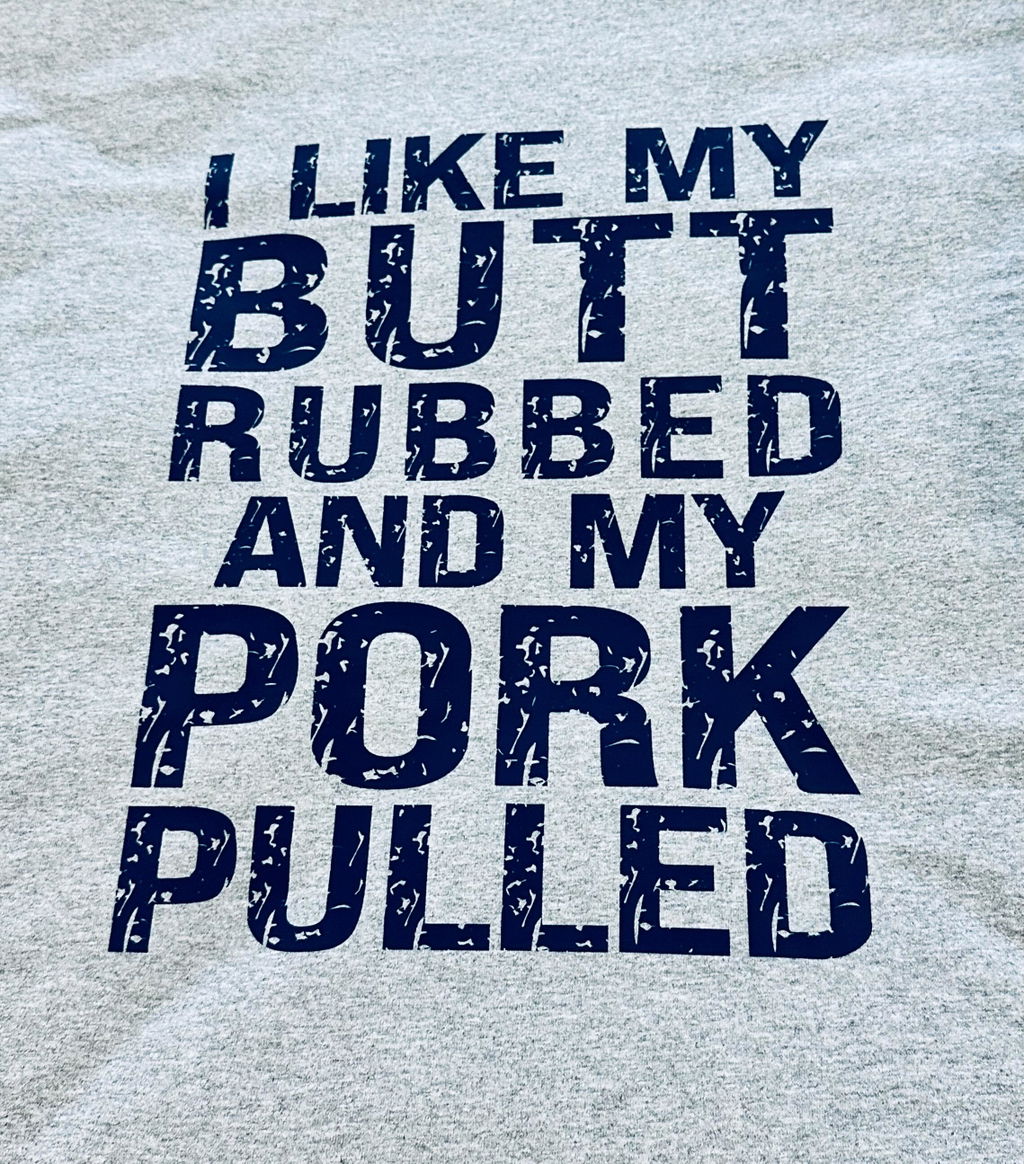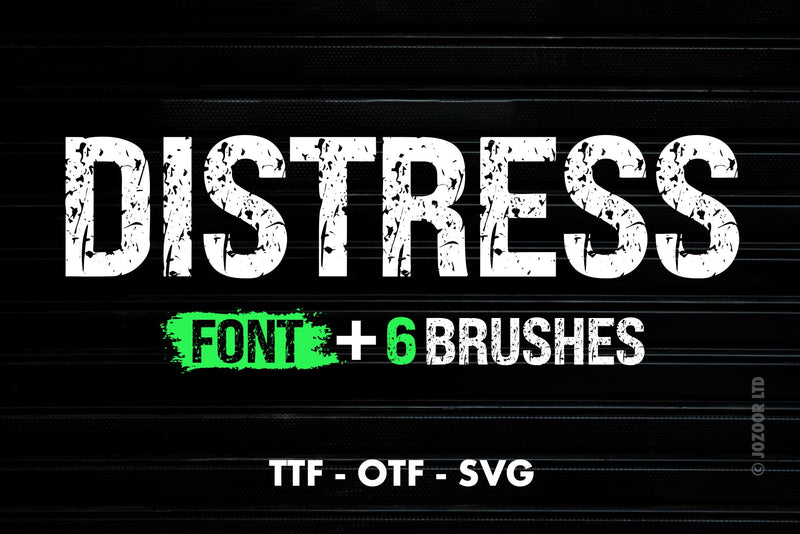
Distressed College Grunge Font
Distress is a unique distressed college grunge decorative font. It can be used in your new projects such as crafting, t-shirt designs, posters, digital designs, presentations, book covers, and much more.